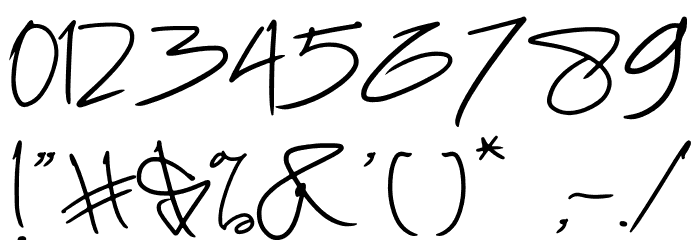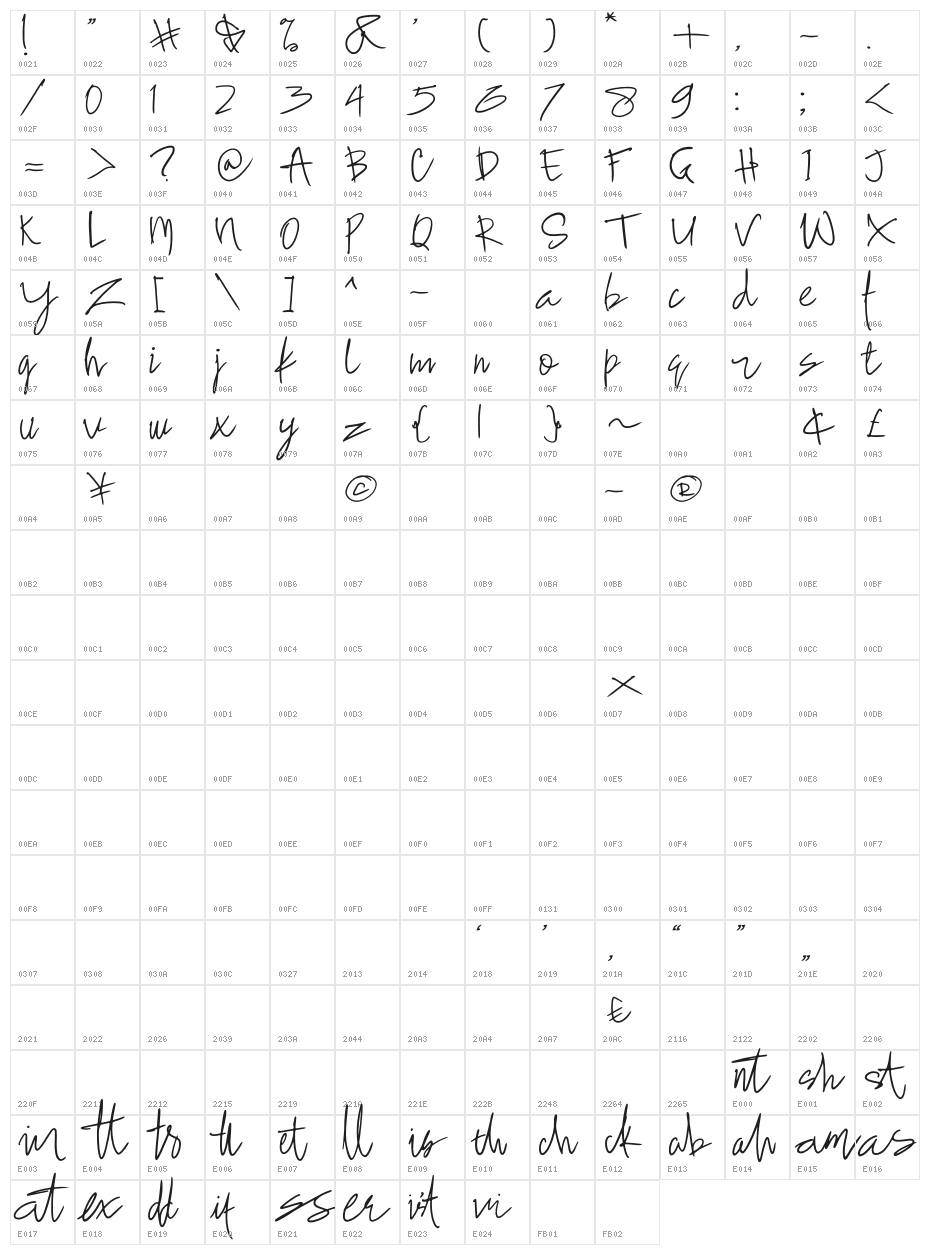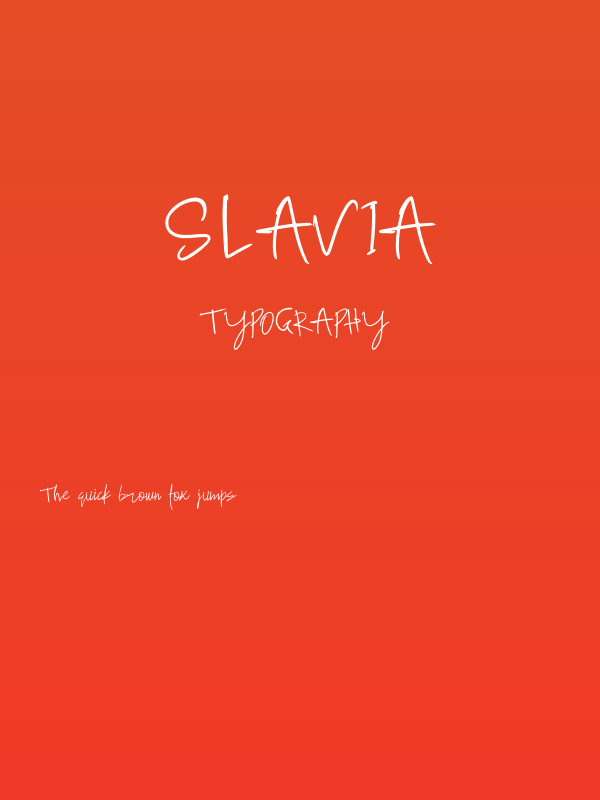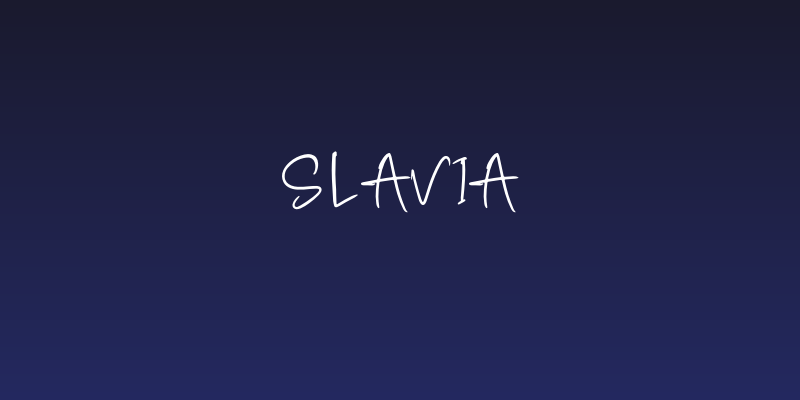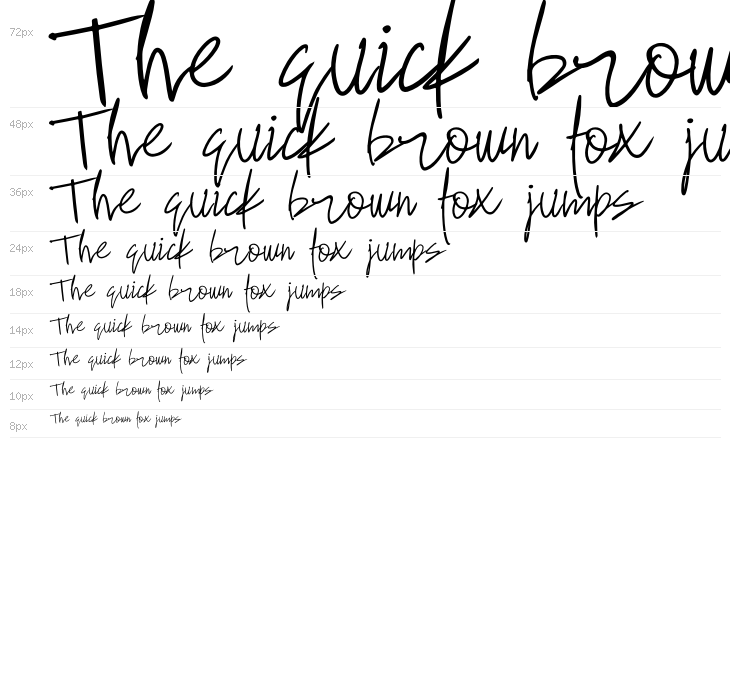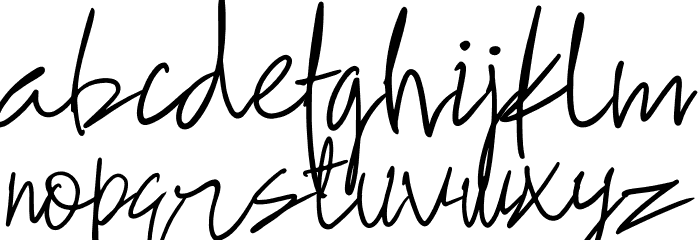
Slavia Font
Slavia Description
This font features a dynamic and energetic handwritten style, characterized by its fluid and slightly irregular strokes. The letters have a casual, yet sophisticated appearance, with a natural flow that mimics authentic handwriting. The uppercase and lowercase letters maintain a consistent style, while the numerals and special characters integrate seamlessly, adding to the font's versatility. The overall look is modern and expressive, making it suitable for projects that require a personal touch.
| Proposed Projects | Ideal for personal branding, invitations, greeting cards, and creative projects that require a personal, handwritten touch. |